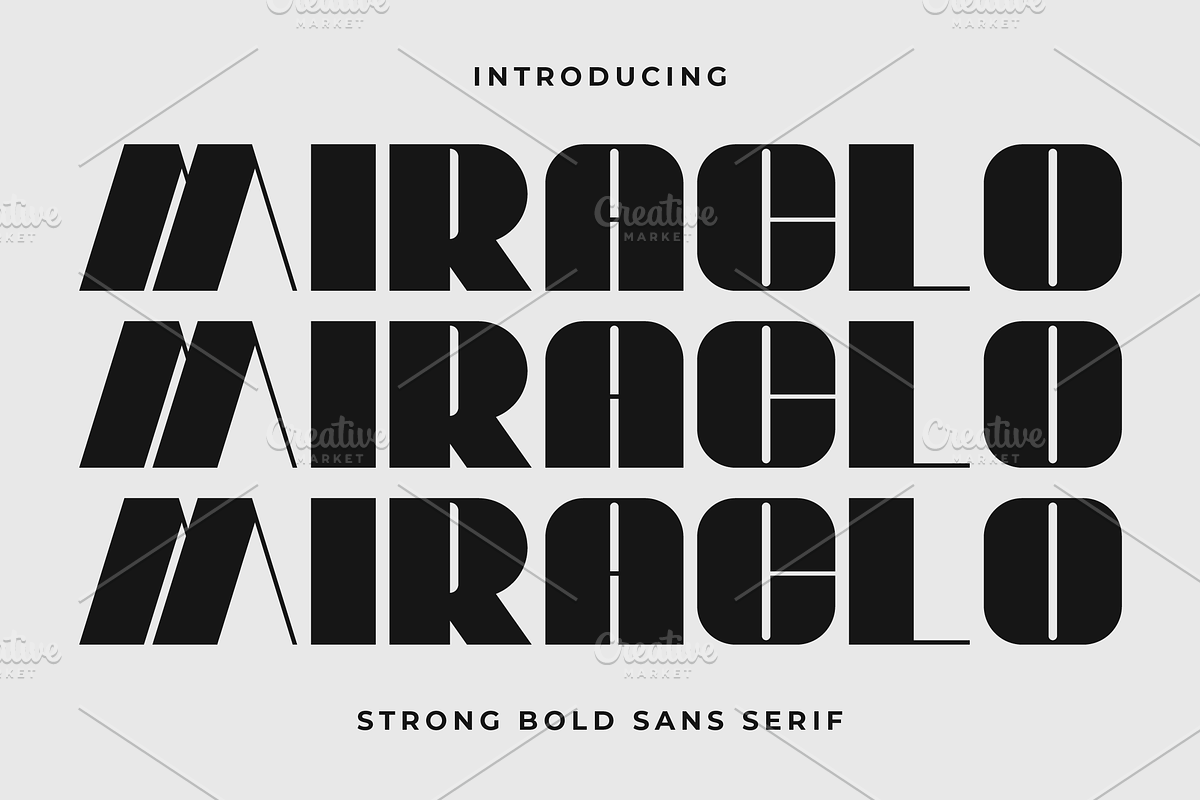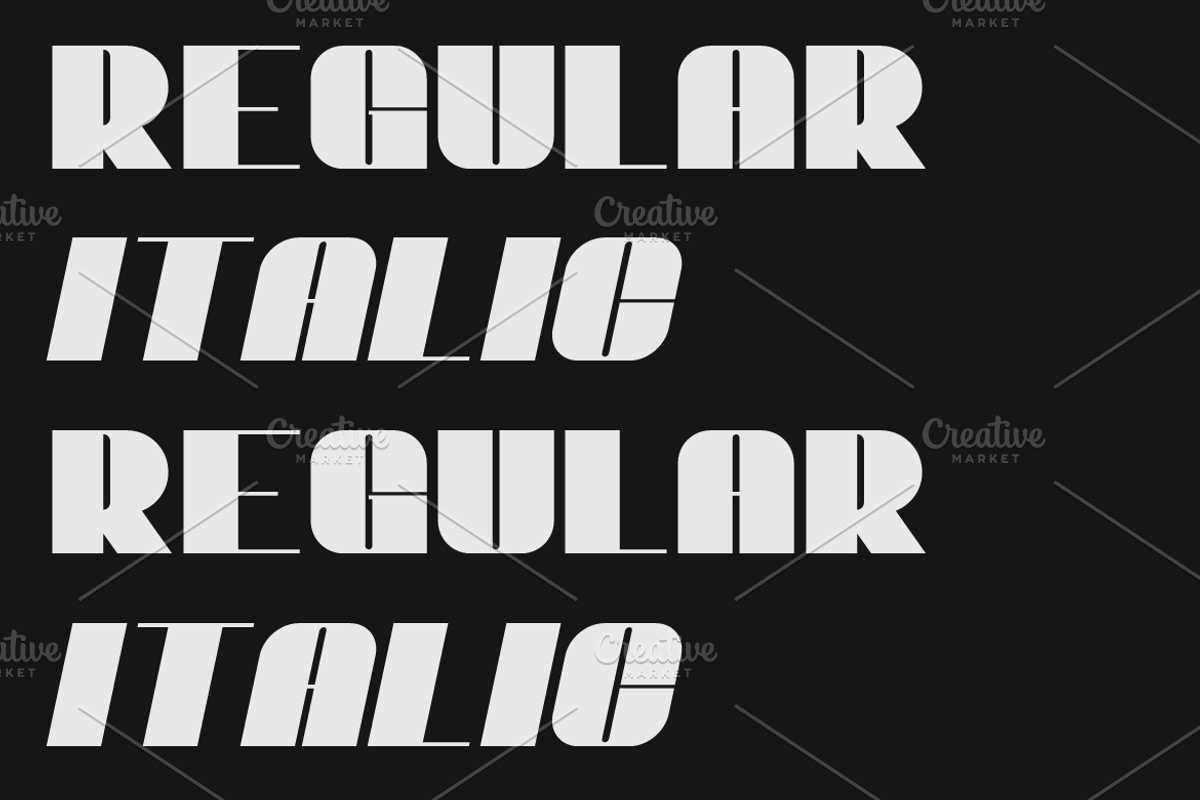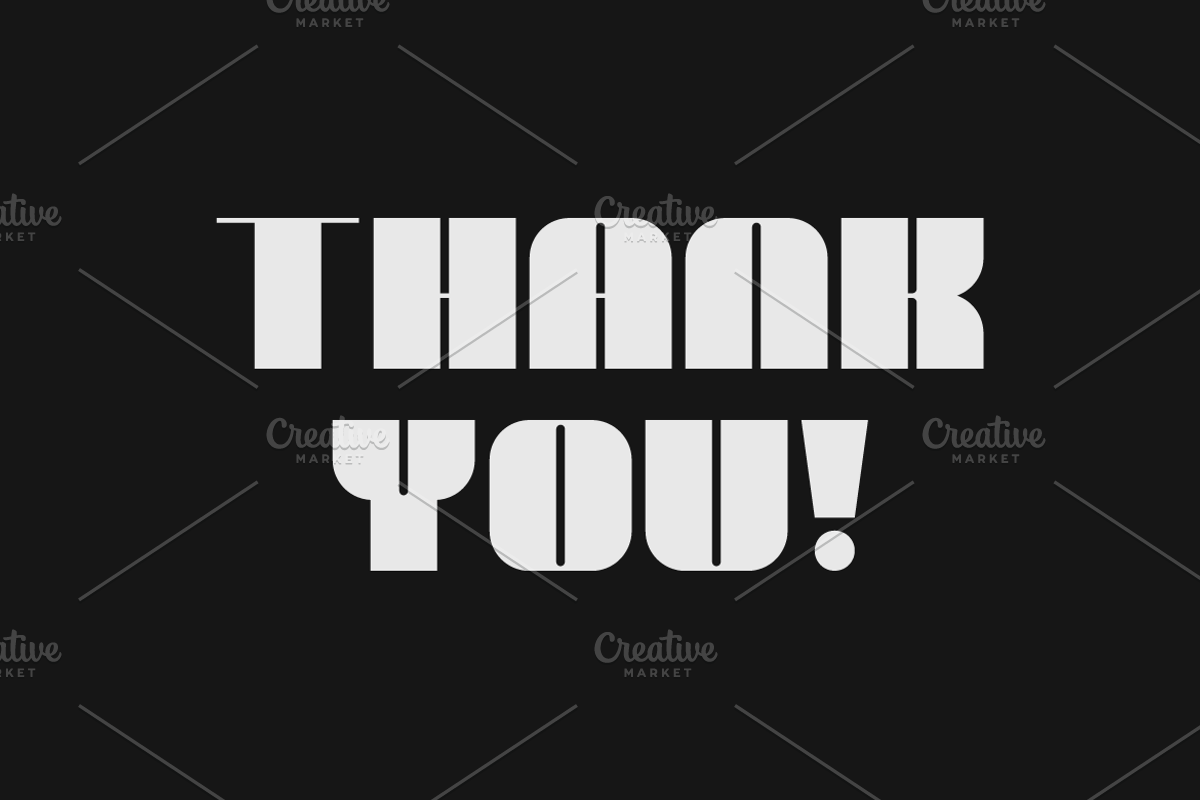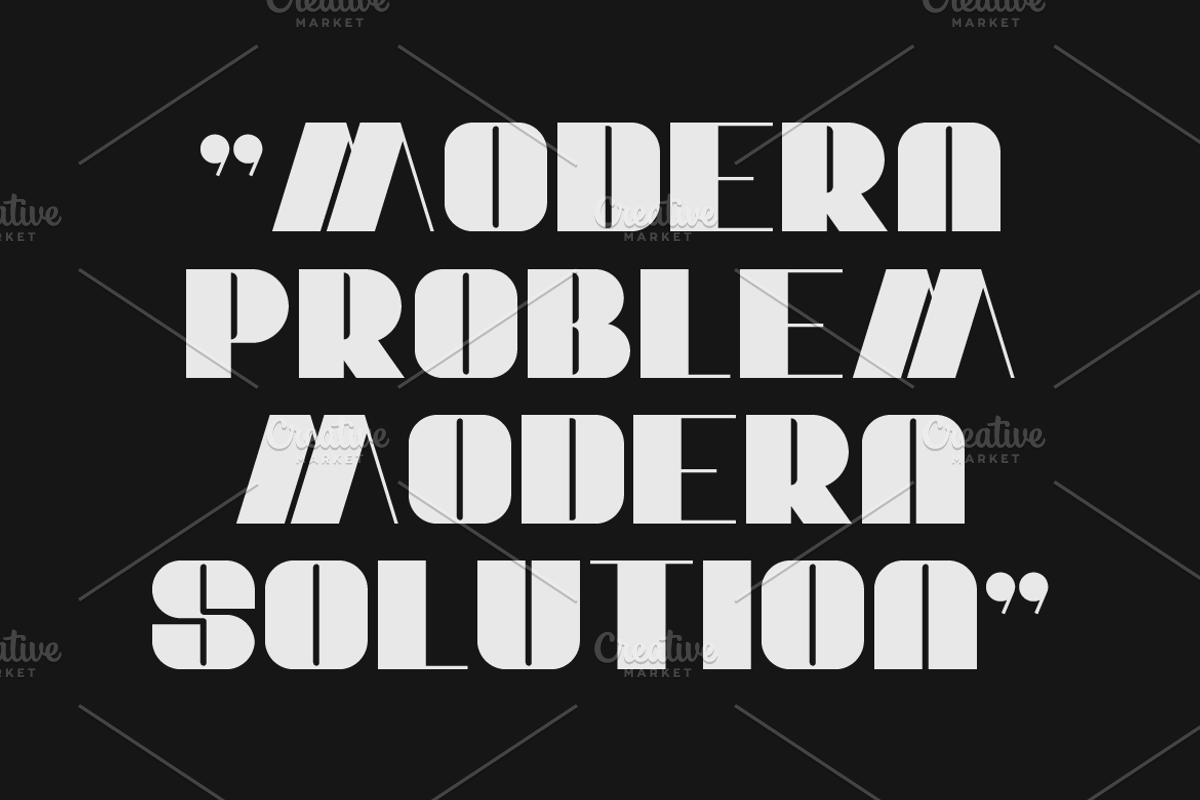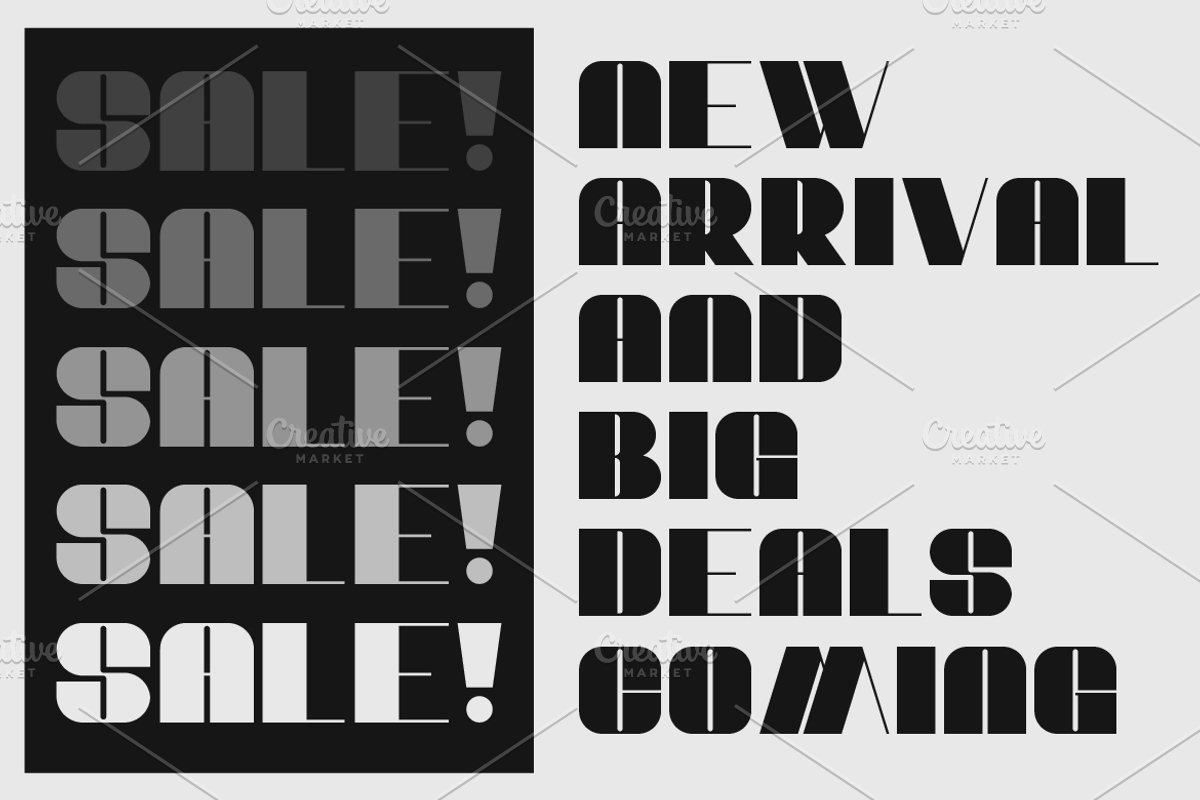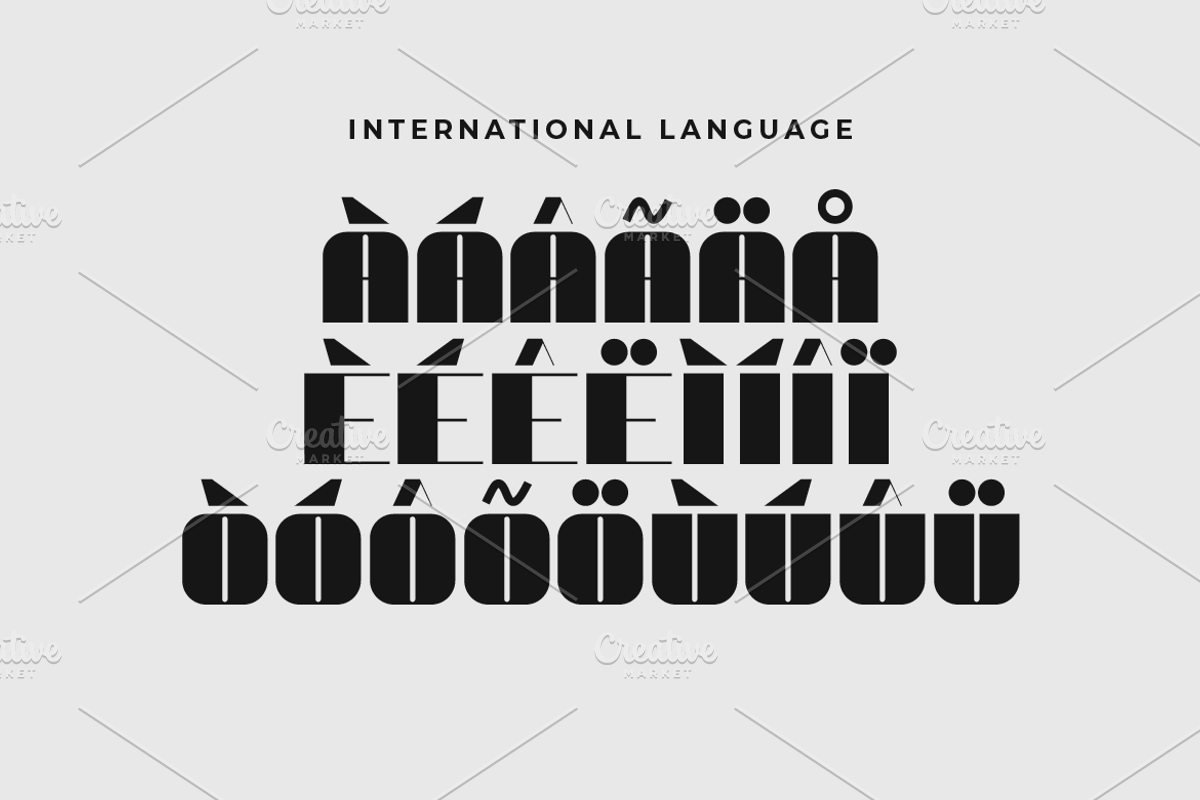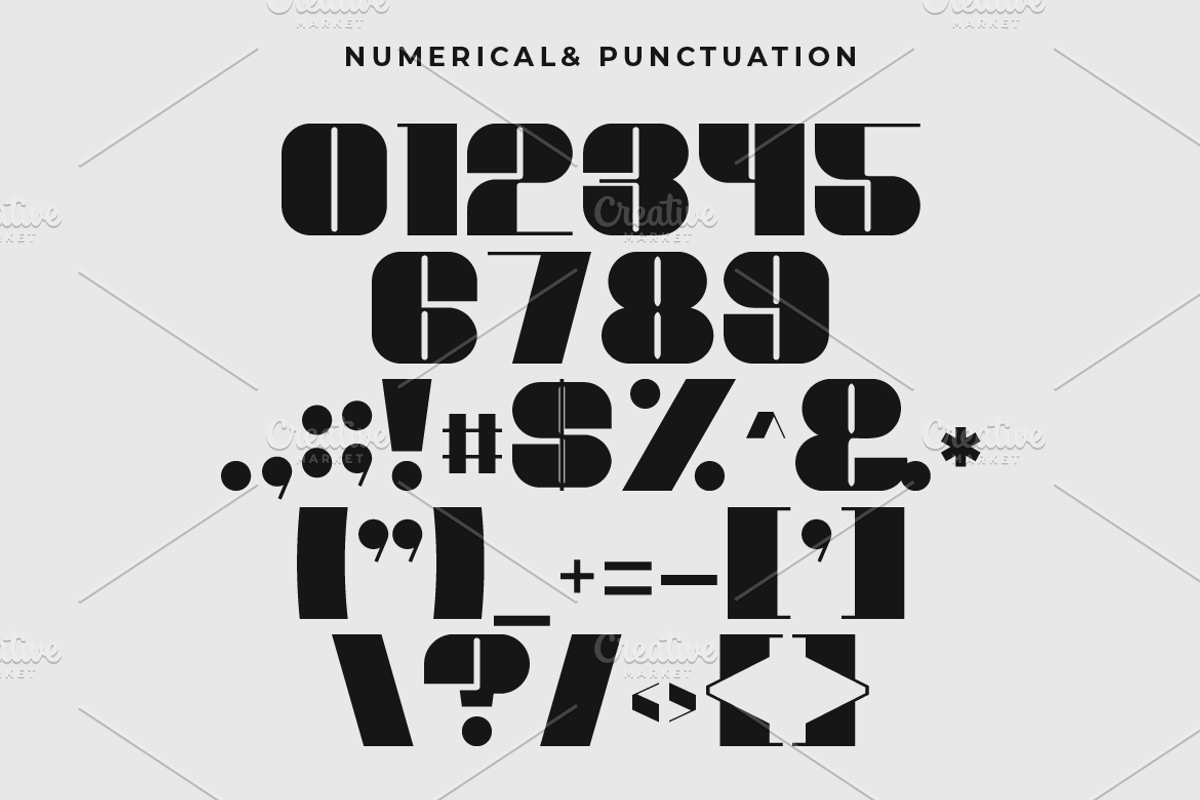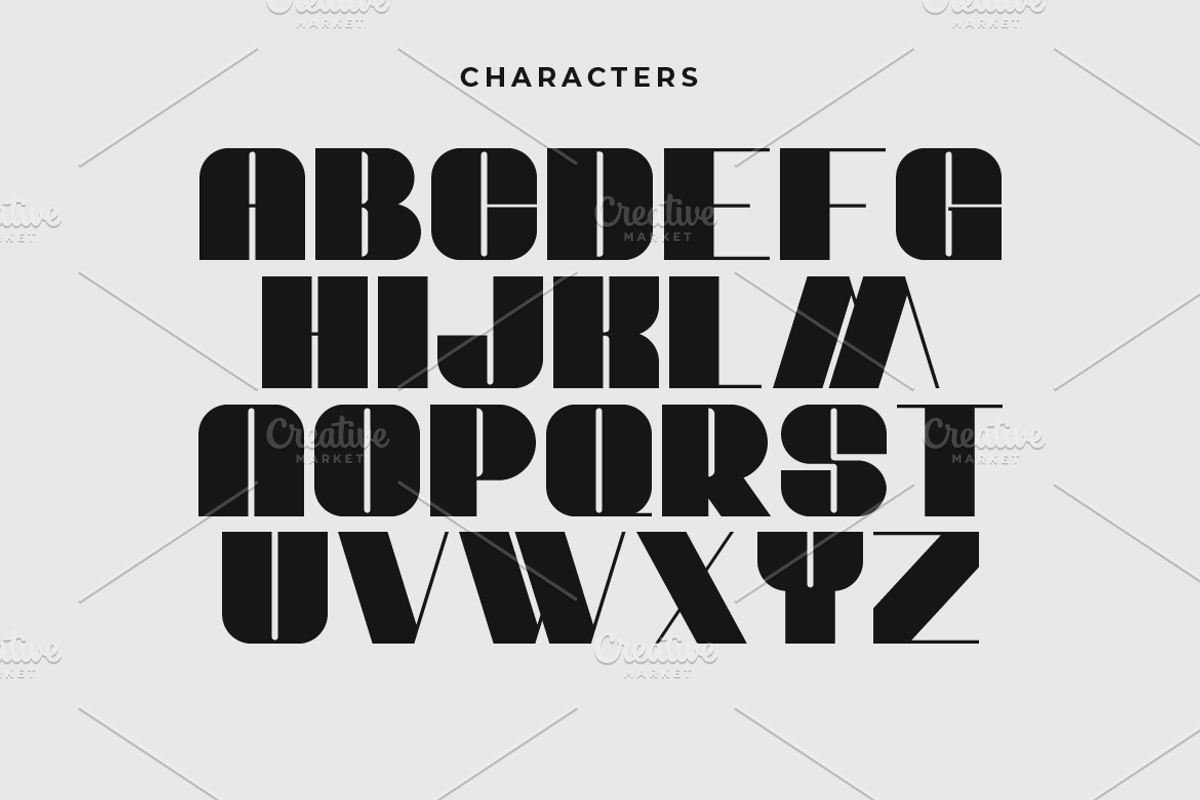
Miraclo Bold Display Font
Miraclo is a unique sans serif font crafted by Iwan Alwan. It features distinctive shapes and offers variations in uppercase and lowercase characters. With multilingual support, Miraclo is perfect for diverse design needs, ensuring versatility and creativity in every project.